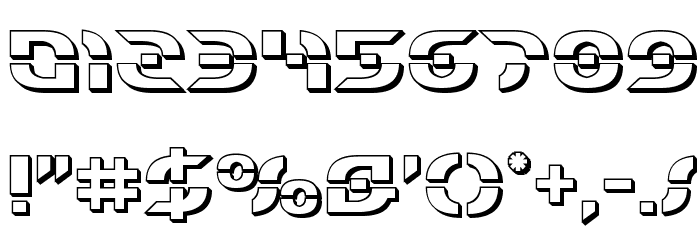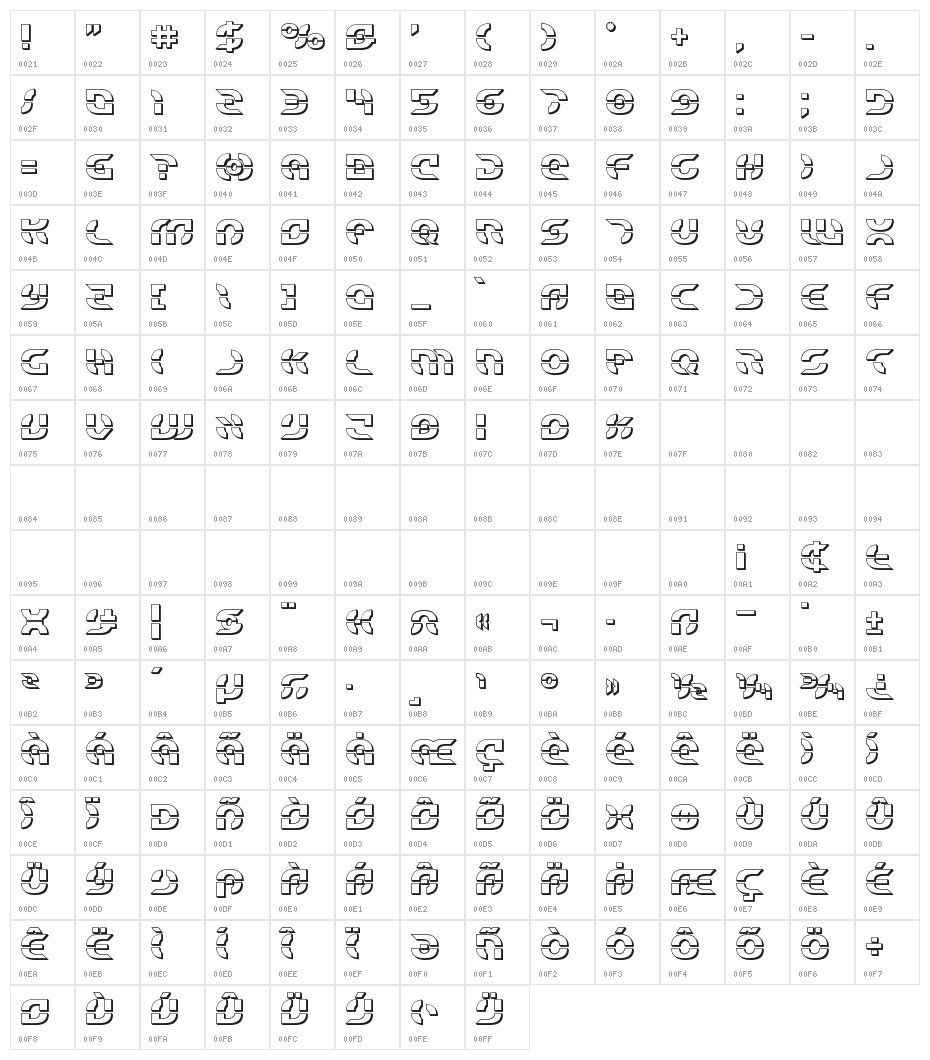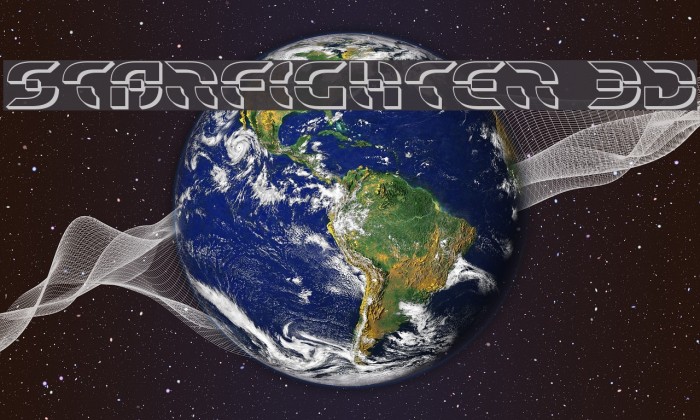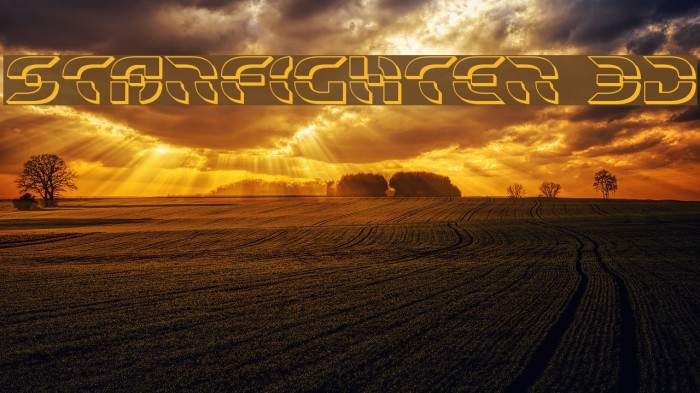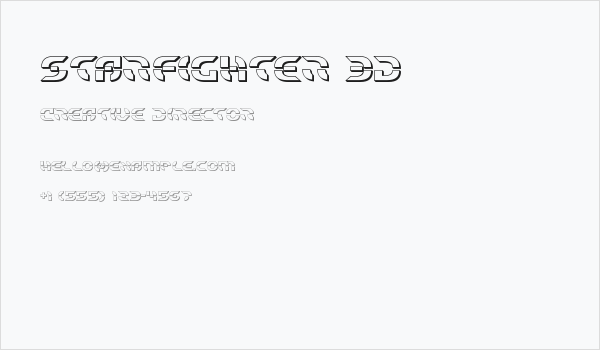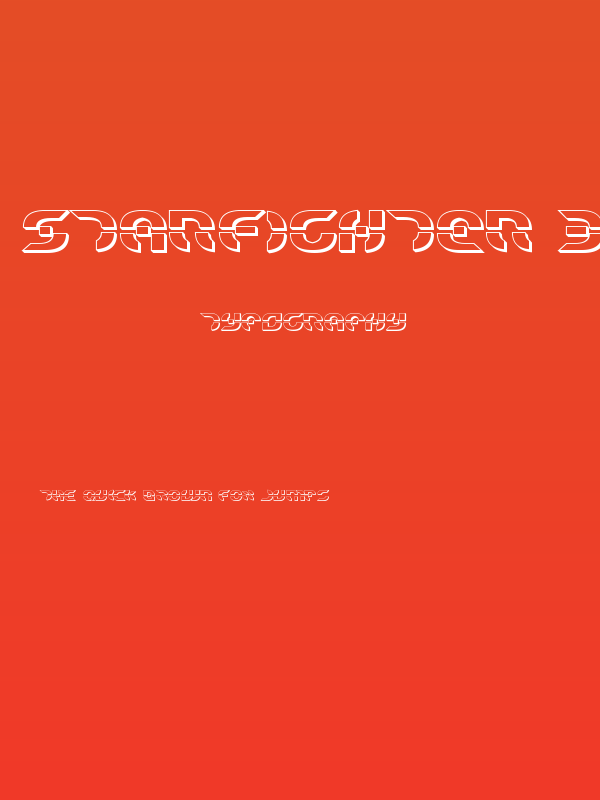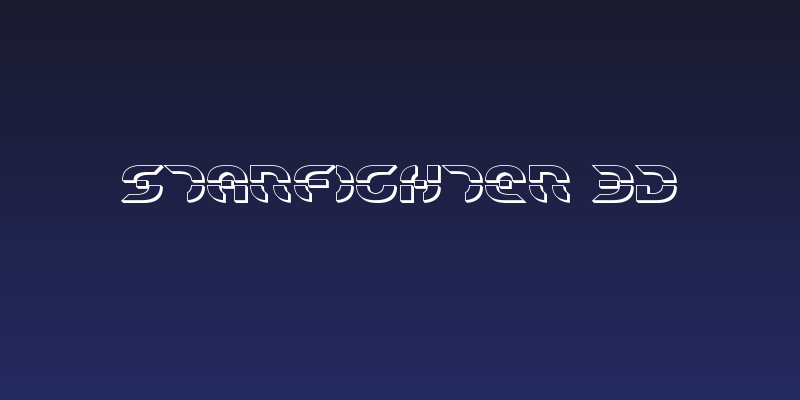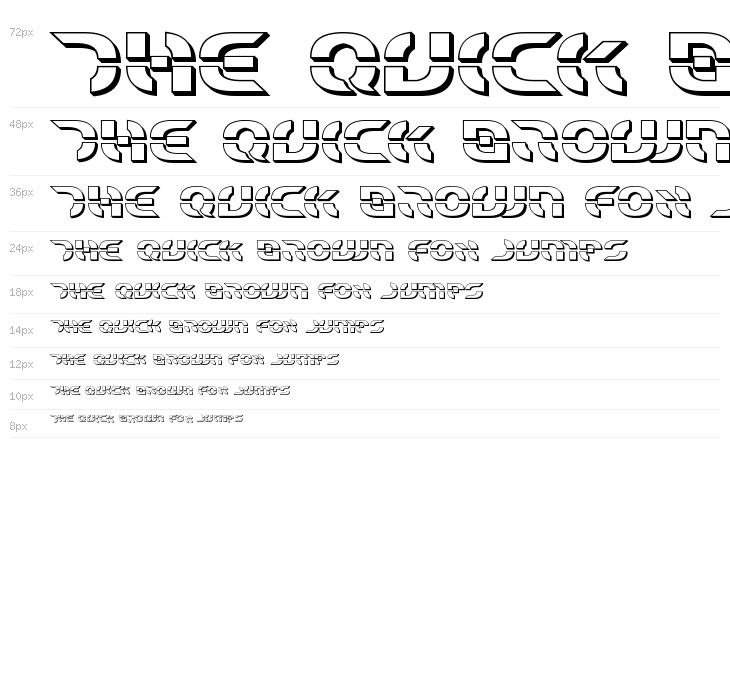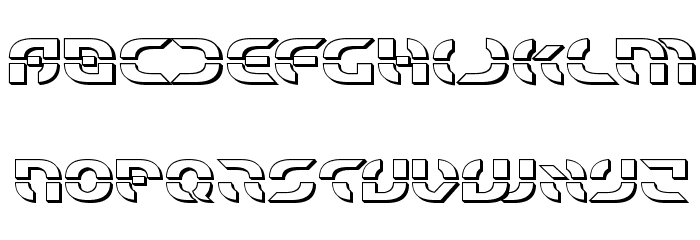
Starfighter 3D Font
Starfighter 3D Description
This font features a futuristic and geometric design, characterized by its bold, three-dimensional appearance. The letters are constructed with sharp angles and clean lines, creating a sense of movement and dynamism. The hollow interior of each character adds depth, making it ideal for digital and print media that require a modern and tech-savvy aesthetic. The uppercase and lowercase letters maintain a consistent style, while the numbers and special characters complement the overall design. This font is perfect for projects that aim to convey innovation and forward-thinking.